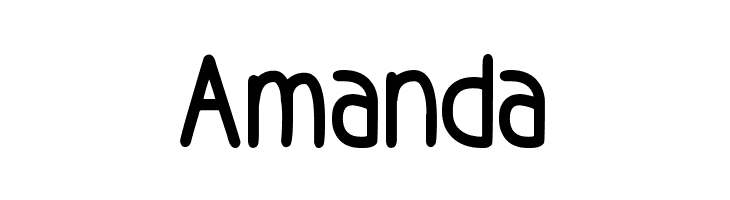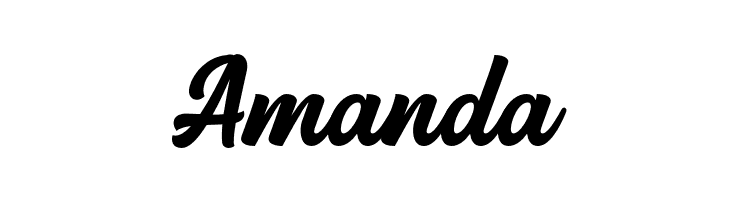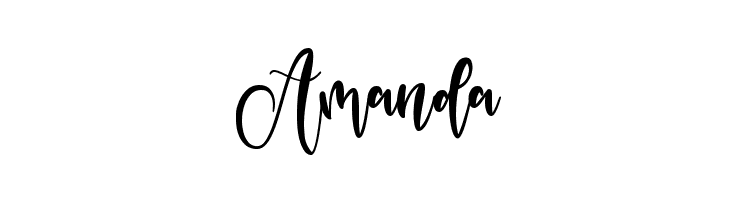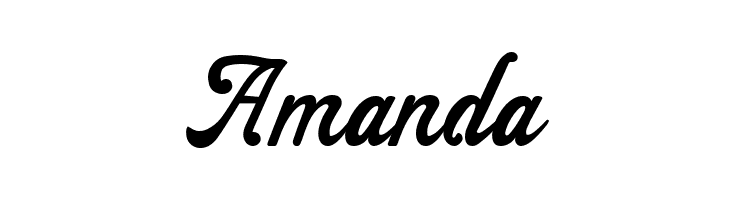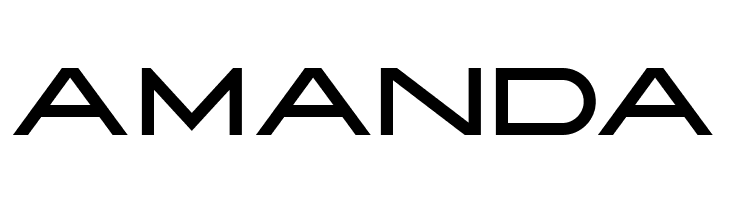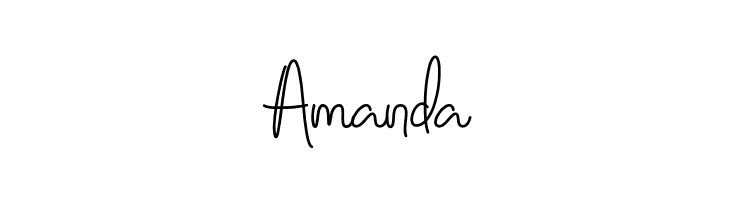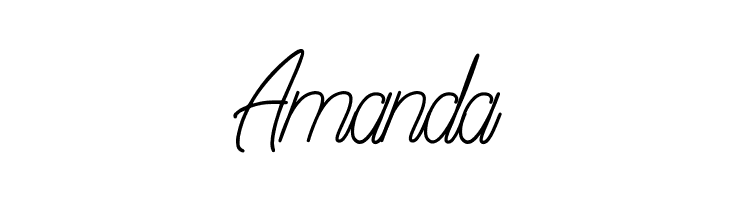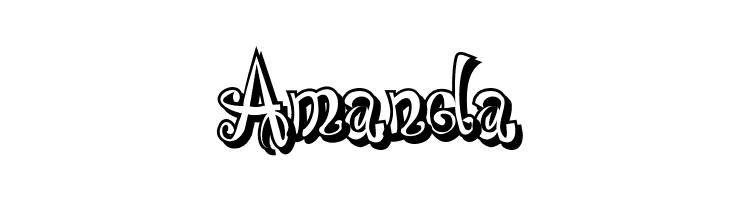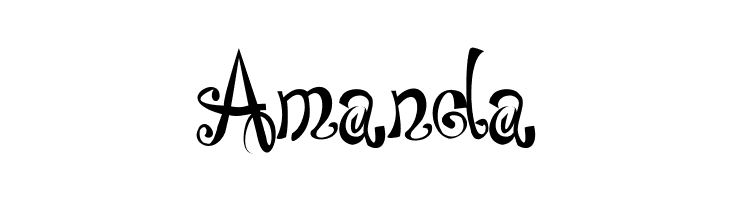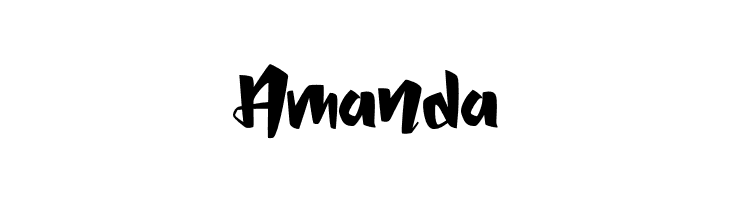
• awe
A bold, brush-textured font with dynamic, jagged strokes.
• Awejatty
Elegant handwritten script font.
• ayahi
A playful and elegant handwritten script font with flowing strokes.
• ayangduit
A classic script font with elegant, flowing curves and a handwritten appearance.
• Azbuka
• Azbuka Lowers 538Lyons
• Babes & Bridal
A graceful and elegant script font with flowing, cursive letters.
• Baby Boomer
• Baby Bowser
A playful, handwritten font with dynamic strokes and a whimsical style.
• Baby Cuttie
A playful, rounded font with smooth, consistent strokes.
• Baby Metal
A bold, geometric font with sharp angles and a blocky design.
• Babylon
A modern, geometric font with a futuristic and sleek design.
• Back2School
Cartoon school-themed illustrative font with characters made from playful scenes.
• Backslash
A futuristic, angular font with a sleek and modern design.
• Backstone
A bold, cursive font with fluid, elegant strokes.
• Baddit
A modern, geometric font with a linear and rhythmic design.
• Badopus tfb
A playful, rounded font with smooth curves and a friendly appearance.
• Bailey Bowers
A casual, handwritten font with a playful and informal style.
• Bailiry [Demo]
A flowing, cursive font with elegant, interconnected strokes.
• Bajareczka
A whimsical and decorative font with intricate swirls and flourishes.
• Bajareczka Shadow
A bold, decorative font with a shadow effect and intricate flourishes.